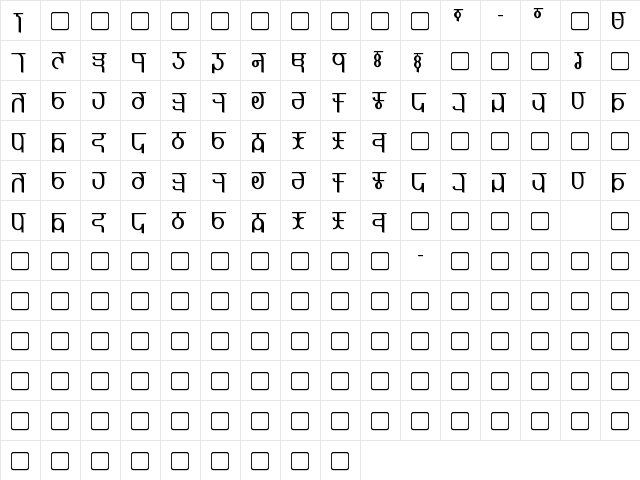
Qijomi Regular
| Foundry | Neale Davidson |
| Designer | Neale Davidson |
Design Context for Qijomi Typeface
Qijomi is a composed and adaptable typeface that performs quietly and consistently across a wide range of design contexts.